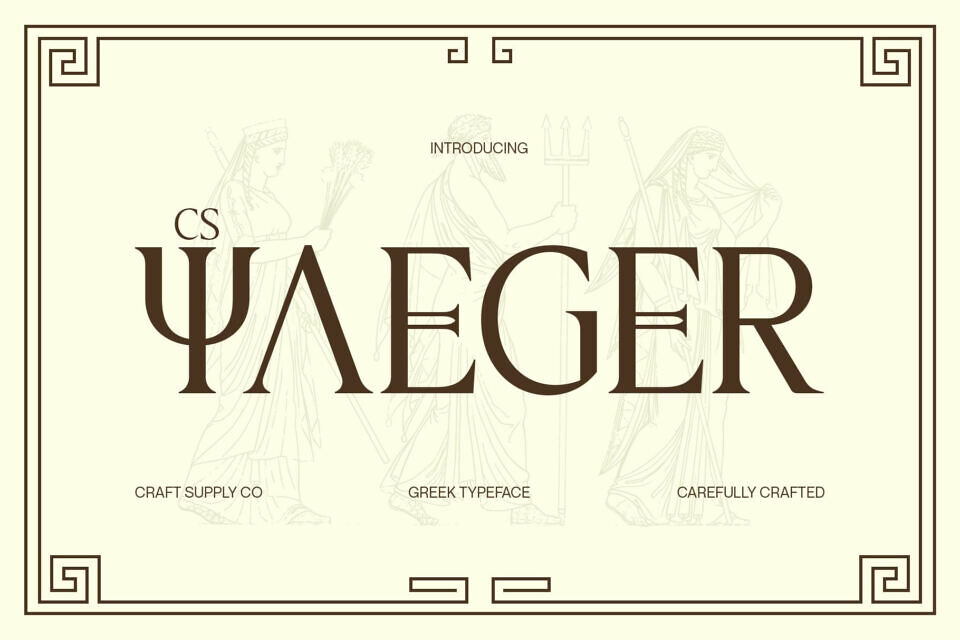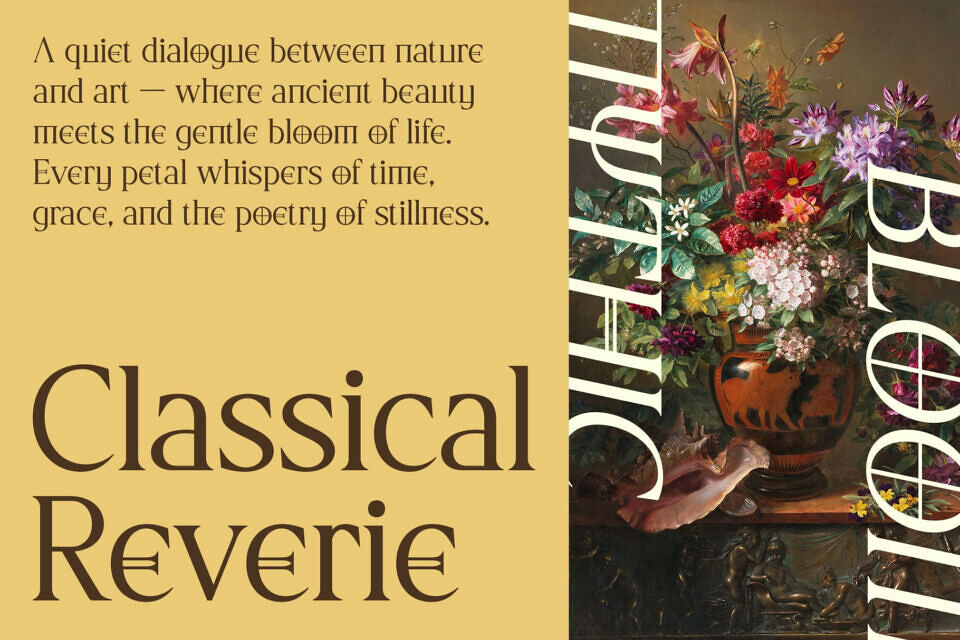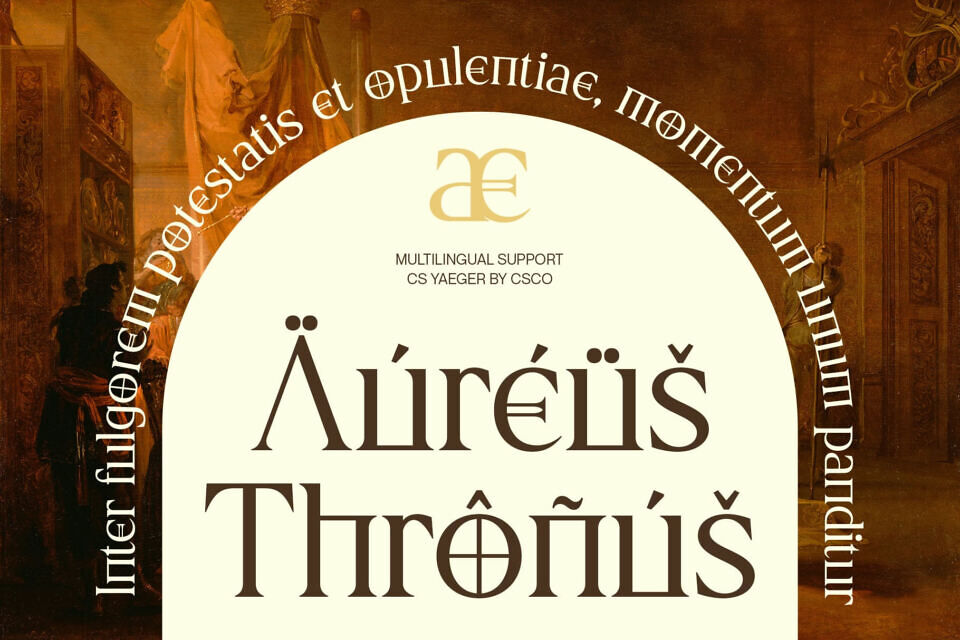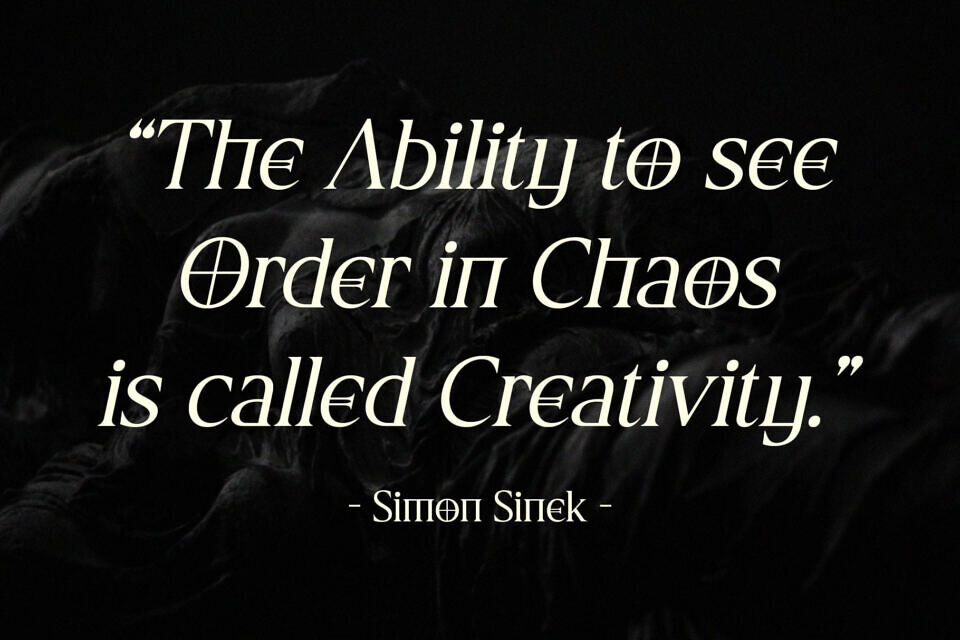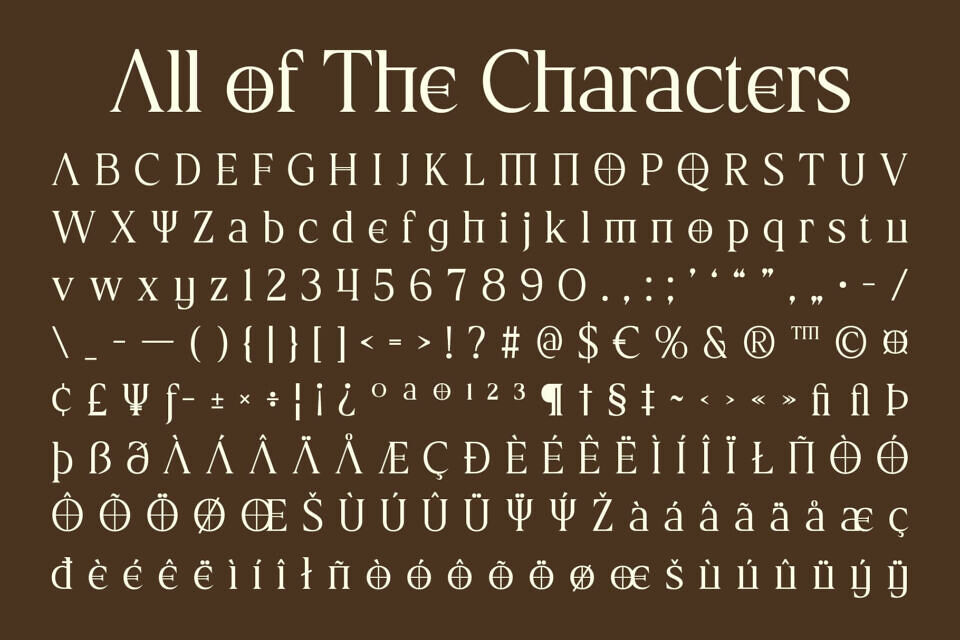
CS Yaeger Font
Yaeger is an elegant serif display font inspired by the timeless beauty of ancient Greek letterforms. It captures the essence of historical grandeur through its strong serifs and sculptural shapes, while reimagining them for the modern era. Each letter carries a sense of heritage and balance, evoking both artistry and authority.
Blending traditional craftsmanship with modern precision, this font transforms the grandeur of Greek inscriptions into a clean and versatile display font. The sharp serifs and defined proportions create a distinctive aesthetic graceful yet bold, classical yet fresh.